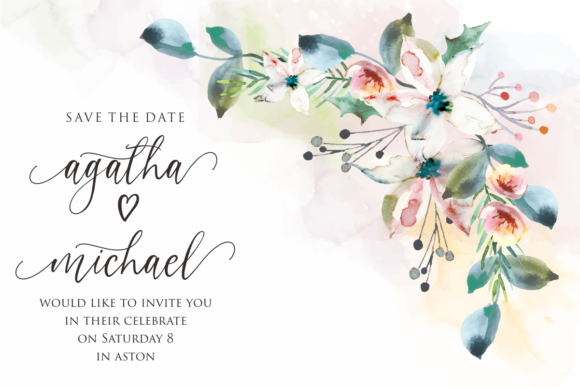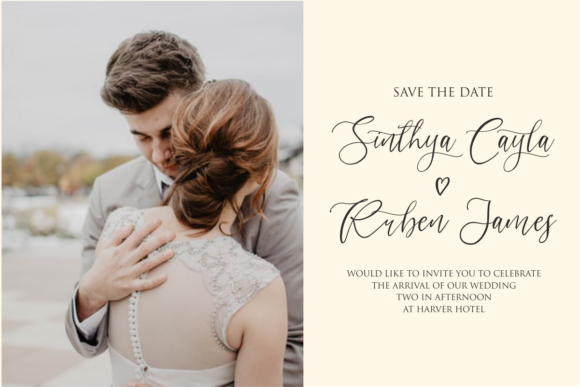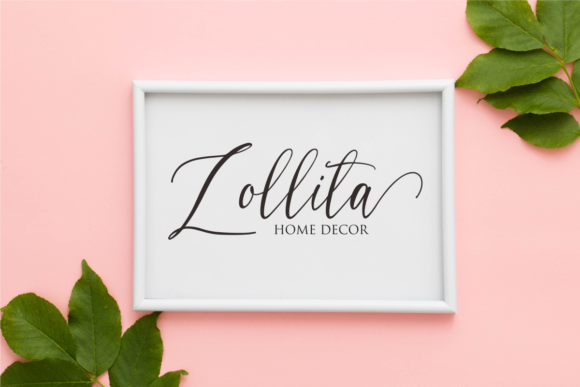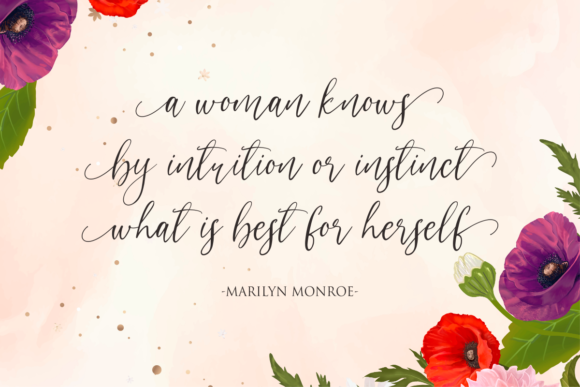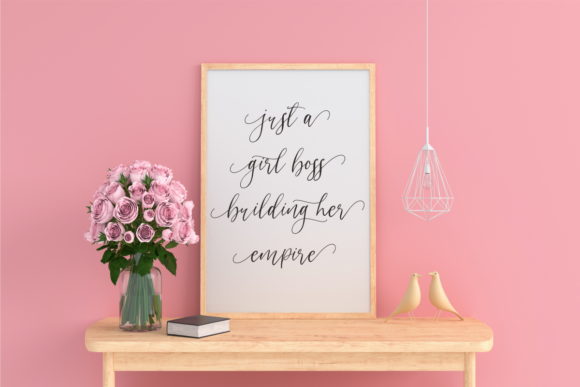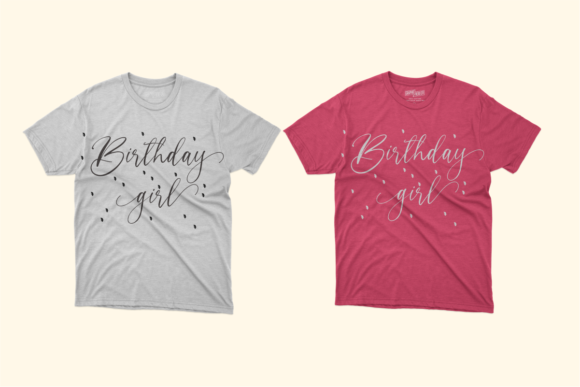
Introducing Angelina Font: Elevate Your Designs with a Touch of Playfulness
Are you tired of using the same old fonts in your designs? Look no further than Angelina Font, a stunning script font that adds a playful touch to any project. With its gorgeous, flowing curves and whimsical feel, Angelina is the perfect choice for designers and crafters looking to turn their ideas into true works of art.
The Characteristics of Angelina Font
Angelina Font is a script font that exudes elegance and playfulness. Its unique characteristics make it stand out from other fonts, and it’s perfect for a variety of design projects. Here are some of the key features that make Angelina Font so special:
- Flowing curves: Angelina Font features beautiful, flowing curves that give it a sense of movement and fluidity. This makes it perfect for designs that require a touch of elegance and sophistication.
- Playful feel: Despite its elegant curves, Angelina Font has a playful feel that’s perfect for designs that require a bit of whimsy. This font is sure to add a touch of fun and personality to any project.
- Versatility: Angelina Font is incredibly versatile, making it suitable for a wide range of design projects. From invitations and greeting cards to branding and packaging, this font can be used in countless ways.
Why Use Angelina Font?
So, why should you choose Angelina Font for your next design project? Here are just a few reasons why this font stands out:
- Adds a touch of elegance: Angelina Font adds a touch of elegance and sophistication to any design project. Its flowing curves and beautiful lines make it perfect for designs that require a bit of luxury and refinement.
- Perfect for creative projects: If you’re working on a creative project, such as a craft or DIY tutorial, Angelina Font is the perfect choice. Its playful feel and whimsical curves make it perfect for adding a touch of personality to your designs.
- Easy to read: Despite its elegant and playful feel, Angelina Font is incredibly easy to read. This makes it perfect for designs that require a clear and concise message, such as invitations, labels, and packaging.
How to Use Angelina Font in Your Designs
Using Angelina Font in your designs is easy! Here are a few tips to get you started:
- Pair it with bold fonts: For a striking contrast, pair Angelina Font with bold, sans-serif fonts. This will add a touch of elegance and sophistication to your designs.
- Use it for headings: Angelina Font is perfect for headings and titles. Use it to add a touch of personality and whimsy to your designs.
- Experiment with colors: Angelina Font looks stunning in a variety of colors. Experiment with different hues and combinations to find the perfect look for your design.
Tips and Tricks for Working with Angelina Font
Here are a few tips and tricks to help you get the most out of Angelina Font:
- Adjust the size: Experiment with different font sizes to find the perfect fit for your design. Angelina Font looks stunning in a variety of sizes, from large headings to smaller text.
- Play with spacing: Don’t be afraid to experiment with different spacing options to find the perfect fit for your design. This will help you create a clear and concise message.
- Use it consistently: For a cohesive look, use Angelina Font consistently throughout your design. This will help create a sense of flow and continuity.
Angelina Font is a gorgeous script font that adds a playful touch to any design project. With its flowing curves, elegant lines, and whimsical feel, it’s perfect for designers and crafters looking to turn their ideas into true works of art. Whether you’re working on a creative project, designing a brand, or simply looking for a new font to add to your collection, Angelina Font is sure to impress. So why not give it a try and see the difference it can make in your designs?